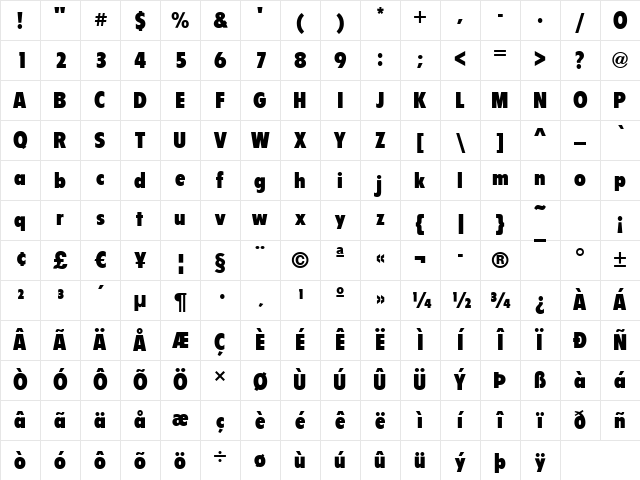
Flipper-Cd Bold Free Font
Flipper-Cd Bold
Complete Flipper-Cd Bold glyph index. Displaying only characters natively supported by Flipper-Cd Bold font.
Design Context for Flipper-Cd
Flipper-Cd is a composed and adaptable typeface that performs quietly and consistently across a wide range of design contexts. Its bold stroke weight gives it real presence on the page.